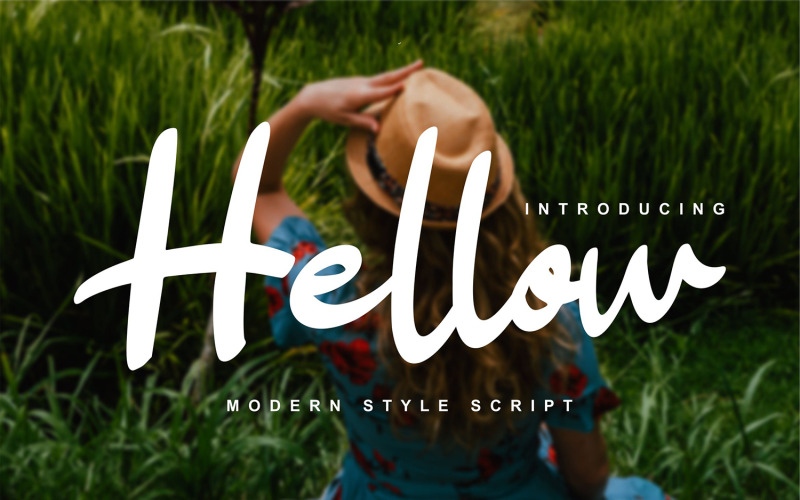
Hellow | Modern Style Cursive Font
**Hellow | Modern Style Script Font** with a calligraphy style, So beautiful on invitation like greeting cards, branding materials, business cards, quotes, posters, and more!